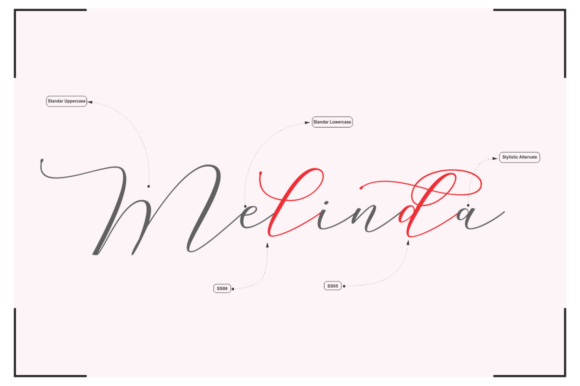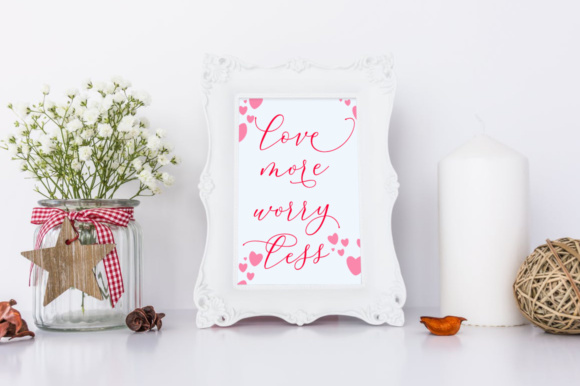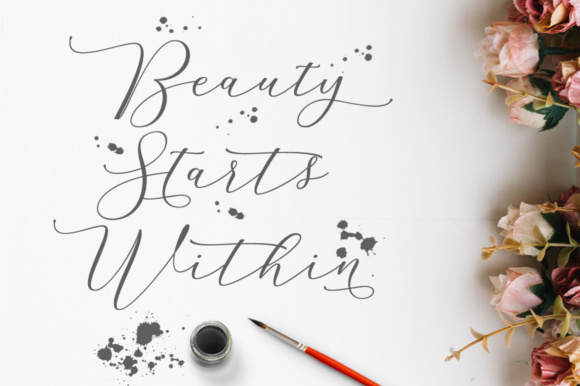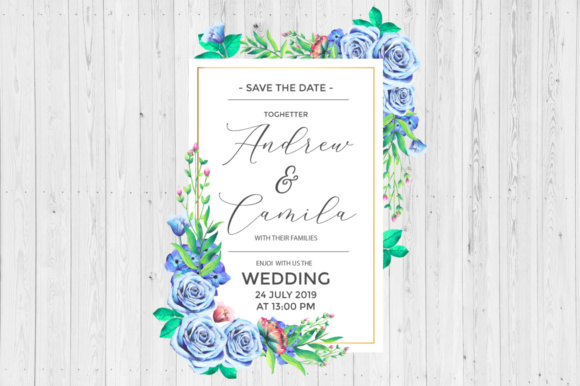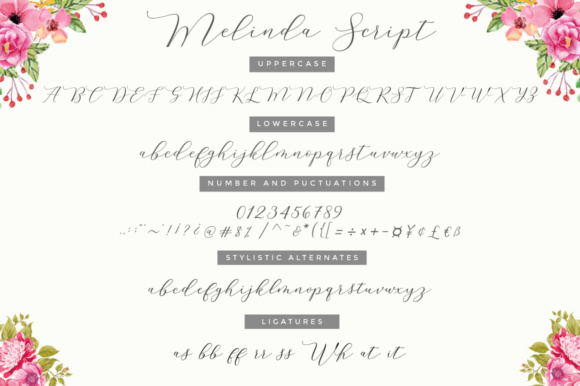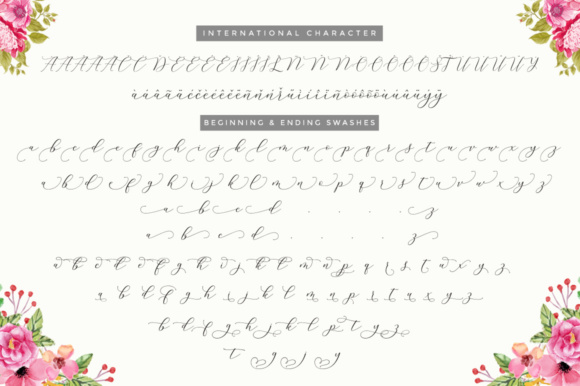
Introduction to Melinda Script Font
That’s where the Melinda Script Font comes in – a stunning, modern calligraphy handwriting font that’s sure to elevate any creative project. With its realistic and modern style, Melinda Script Font is the perfect addition to your design arsenal, offering a level of sophistication and elegance that’s hard to find elsewhere.
Key Features of Melinda Script Font
- High-quality, elegant script font perfect for creative projects, available for free download.
- Unique, cursive design with a touch of sophistication, ideal for wedding invitations, quotes, and other design resources.
- Includes a transparent background, making it easy to customize and overlay on any image or design.
- Perfect for designers, artists, and writers seeking a high-quality, elegant script font for their creative projects.
Honest Review: Melinda Script Font
As a designer, I’ve worked with my fair share of fonts, but the Melinda Script Font has caught my attention recently. I downloaded it for free and was surprised by its high quality.
What works well: ✨ The Melinda Script Font has a beautiful, elegant feel that’s perfect for creative projects, especially those that require a touch of sophistication. It’s great for use in logos, invitations, and other design elements where a subtle yet striking look is desired. The font also has a transparent background, making it easy to use on different backgrounds.
- High quality and elegant feel
Limitations: ⚠️ While the Melinda Script Font is generally well-designed, I did notice that it’s not suitable for use in large blocks of text. It’s best used in smaller quantities or as an accent font to add visual interest.
Overall, I’m impressed with the Melinda Script Font as a design resource. It’s a great addition to any designer’s toolkit, and I’ll definitely be using it in my future projects.
The Melinda Script Font is commonly used in design projects that require a high level of creativity and visual appeal. Some common use cases include wedding invitations, greeting cards, and social media graphics. The font’s transparent background and high-quality design make it an ideal choice for designers looking to add a creative touch to their projects.